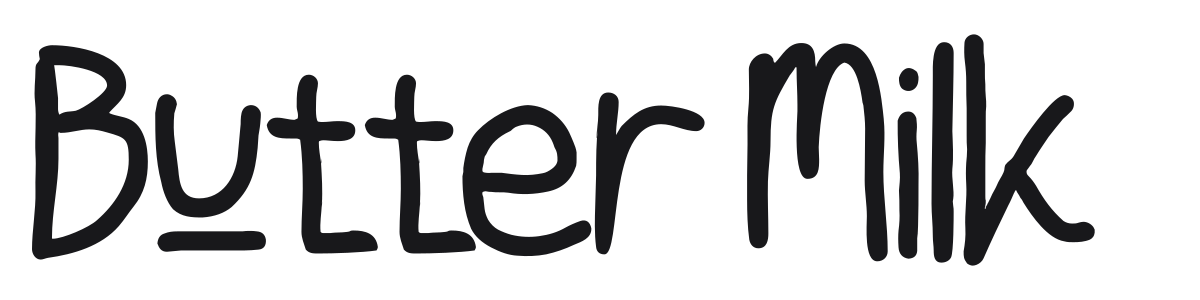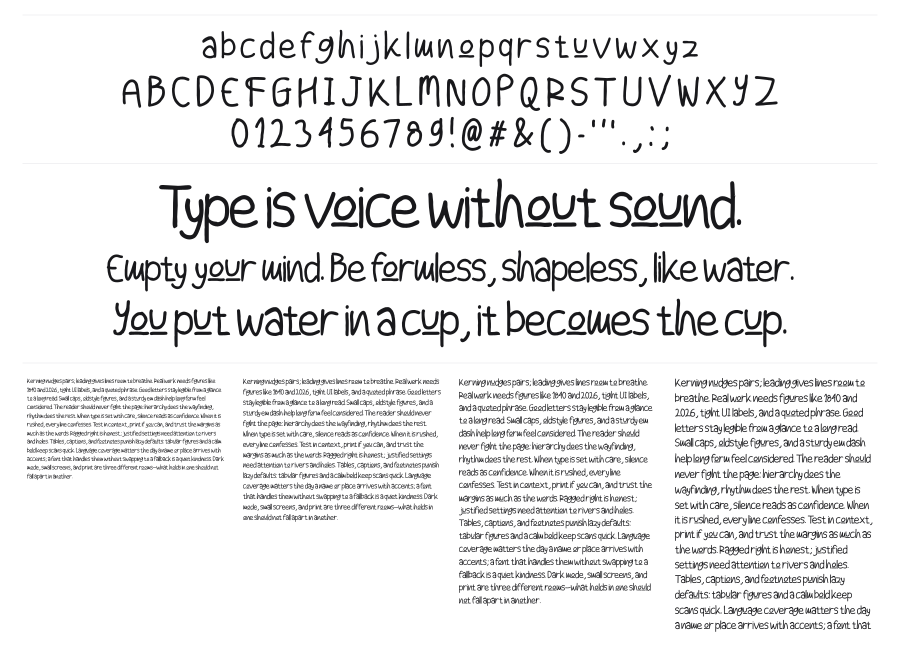
Butter Milk
Butter Milk is a casual handwritten font with rounded, slightly wobbly strokes and a genuine hand-drawn quality. The natural irregularities in letter spacing and baseline give it an unforced warmth that feels personal rather than mechanical. It suits anything that needs a friendly, unpretentious voice.